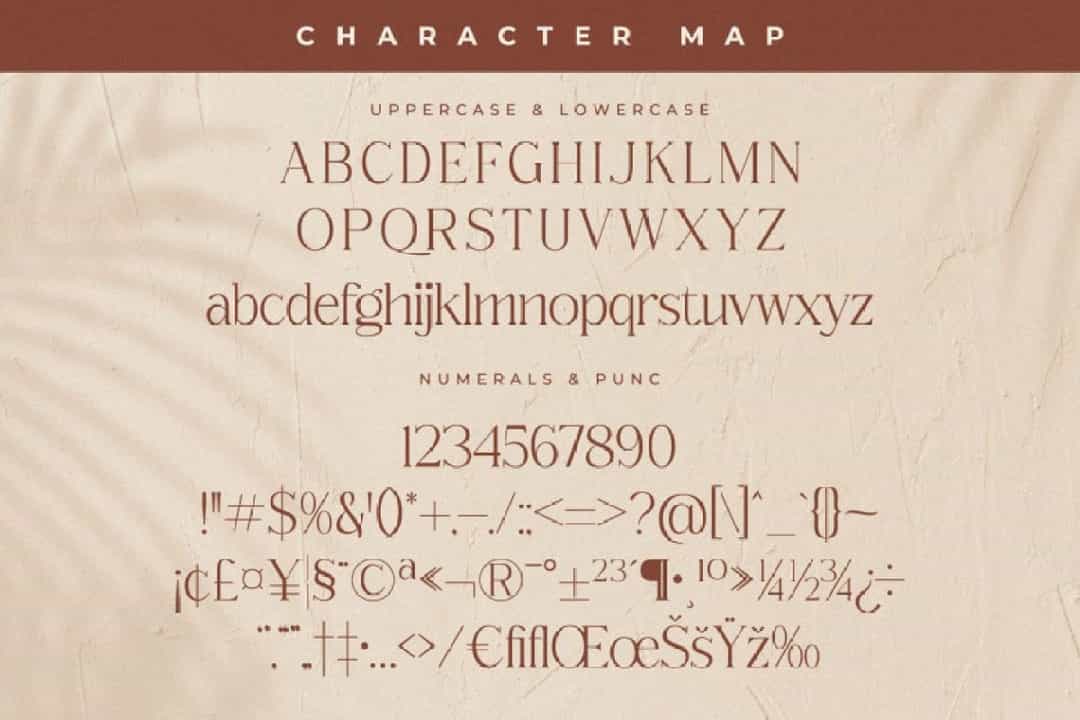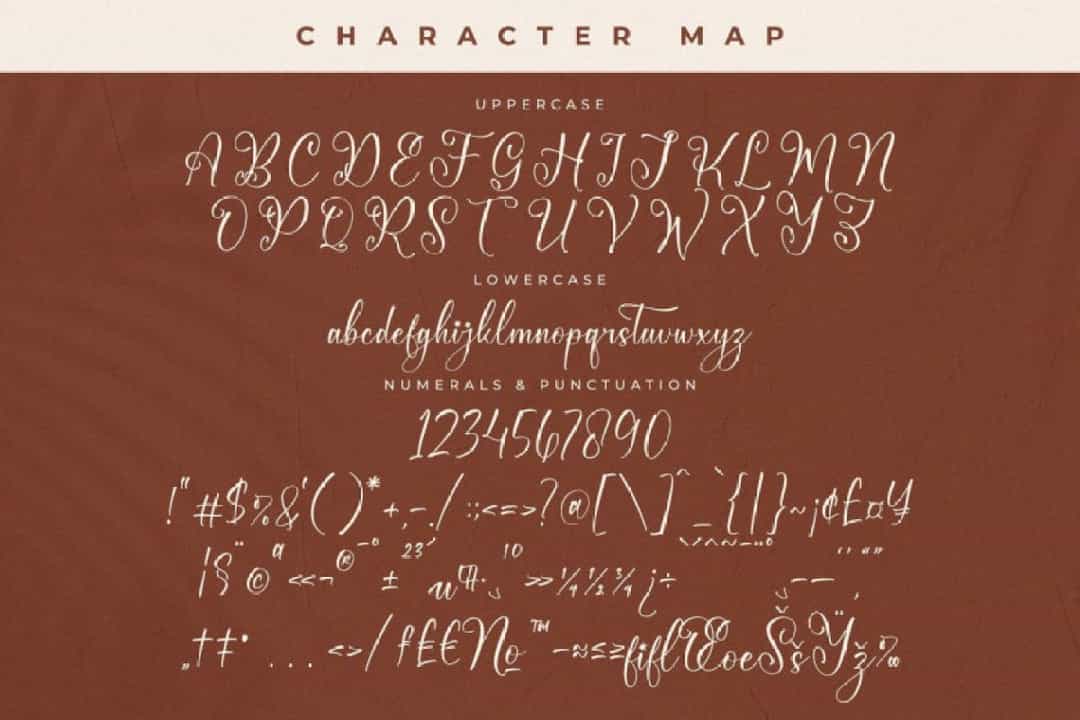
Qerginas Frenchstyleis an elegant Serif font and script with an eye-catching modern aesthetic, ideal for creating elegant logos, movie or book label designs as well as fashion brands, magazines clothing labels, lettering quotes and many other projects. This font’s versatile nature means it can also help bring modernity and design elements into any creative project – logo designs for movies/books labels etc!